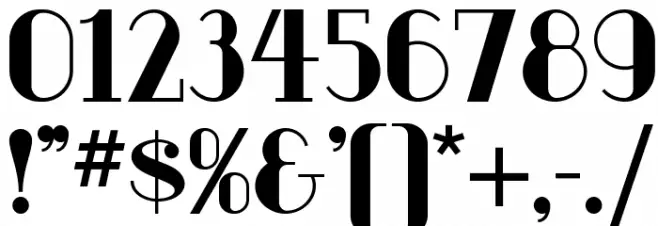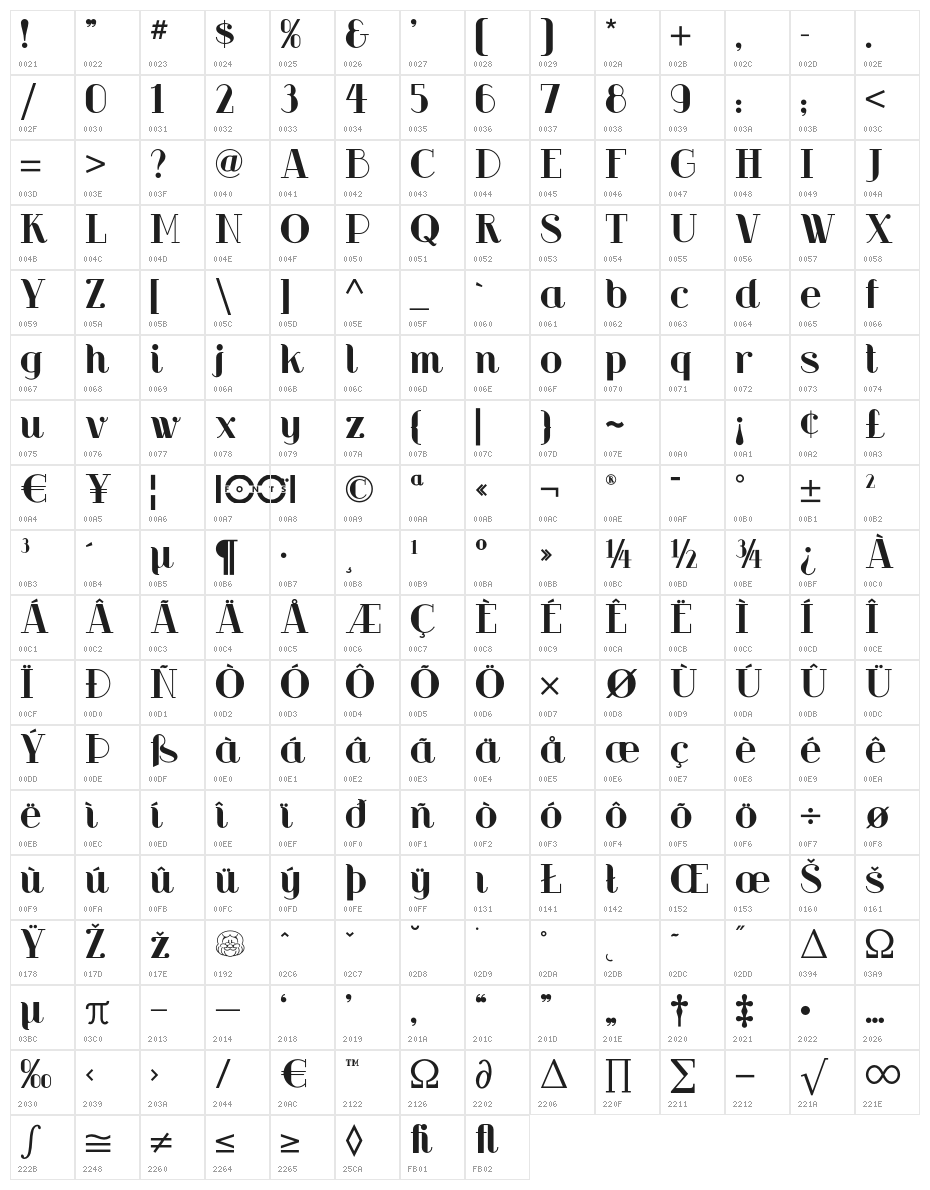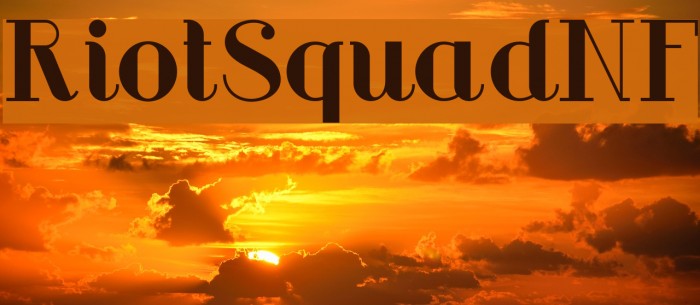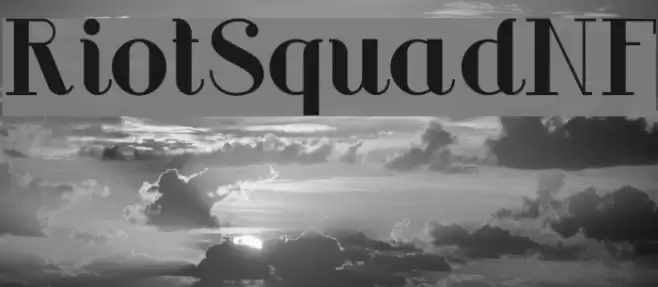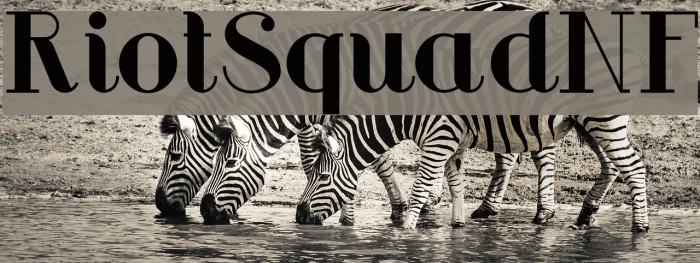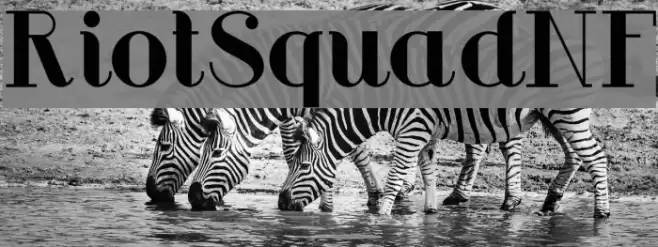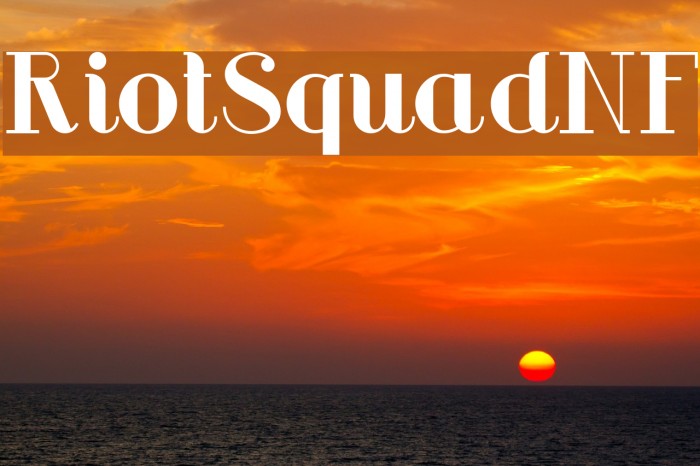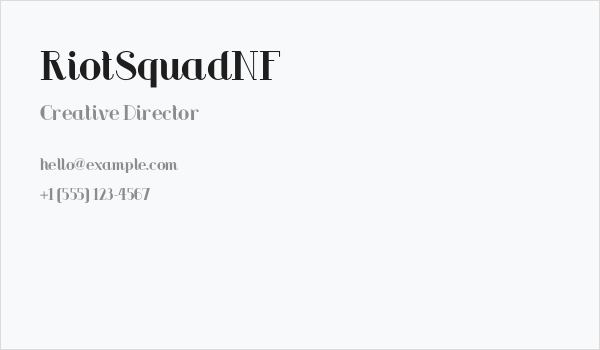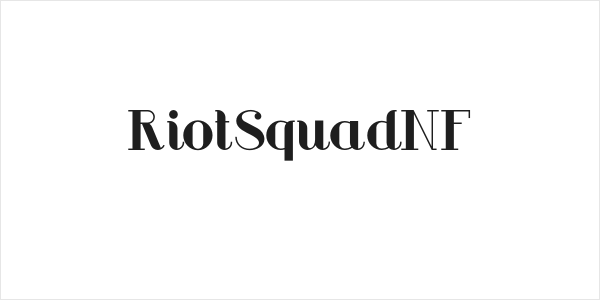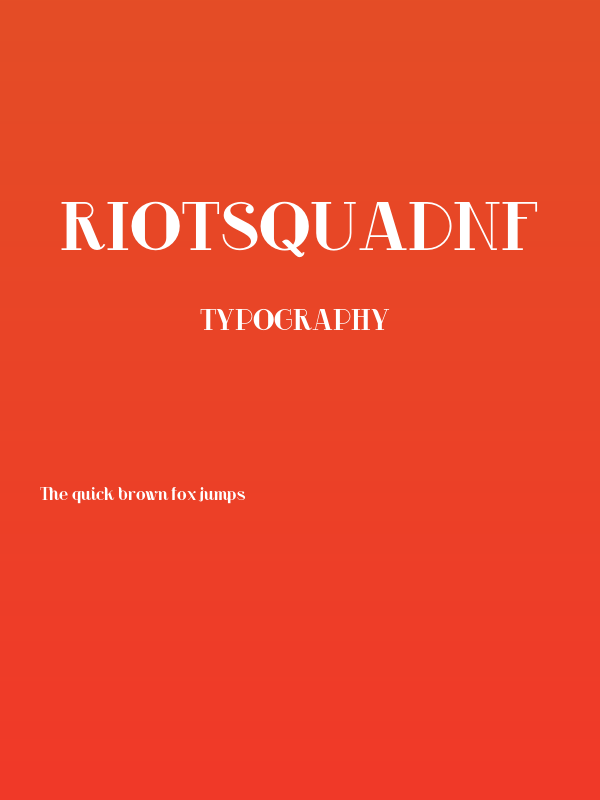
RiotSquadNF Font
RiotSquadNF Description
This font features a bold and striking design with a modern twist. The uppercase letters are characterized by sharp serifs and a strong vertical emphasis, creating a sense of authority and elegance. The lowercase letters maintain a consistent style, with rounded edges that add a touch of softness to the overall appearance. The numerals are designed with a similar boldness, ensuring readability and impact. Special characters are crafted with attention to detail, complementing the font's aesthetic. The combination of thick and thin strokes provides a high contrast, enhancing its visual appeal.